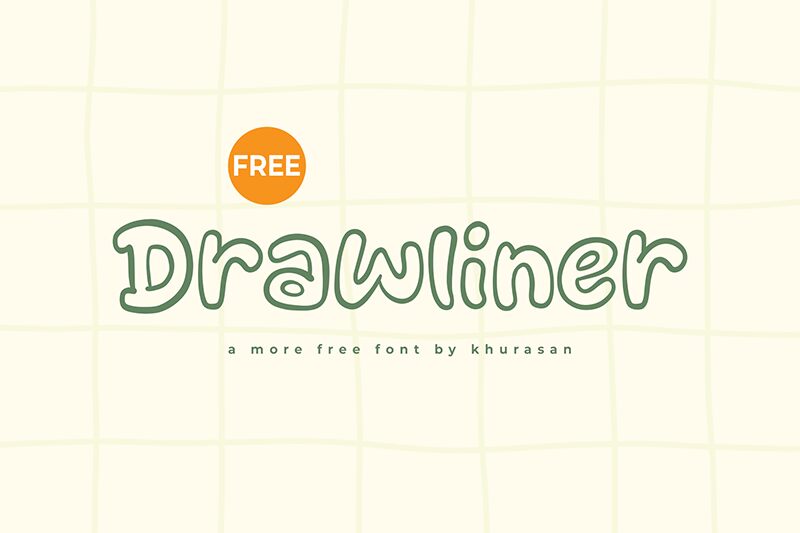
Drawliner
Drawliner font by Khurasan is a bold display typeface with a hand-drawn style, whimsical feel, and artistic flair. It has a casual aesthetic that works perfectly for contemporary applications in creative projects. Each letter is outlined and resembles cartoons to combine a playful side with legible characters.
The free cartoon font can be used in print or digitally in headline designs, typography quotes, product or packaging design, apparel design, branding ideas, invitations and cards (business OR greeting). The letters are balanced making them great for short text designs that surely need attention.